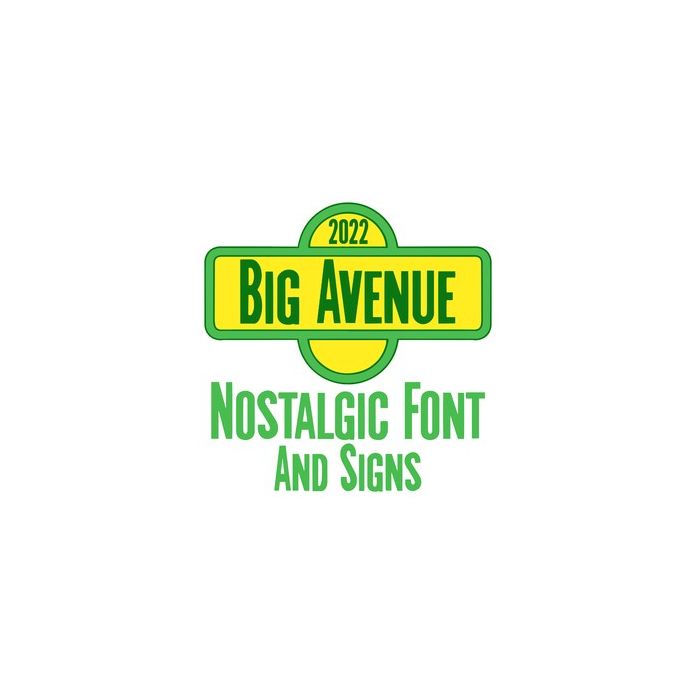
Big Avenue Font
A fun, customizable font that includes street sign blanks. Perfect for customized name signs on t-shirts, mugs, tumblers, bags, cards, and more.